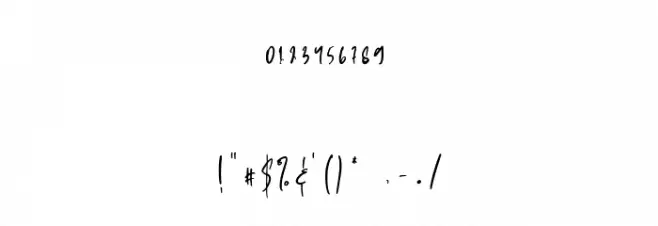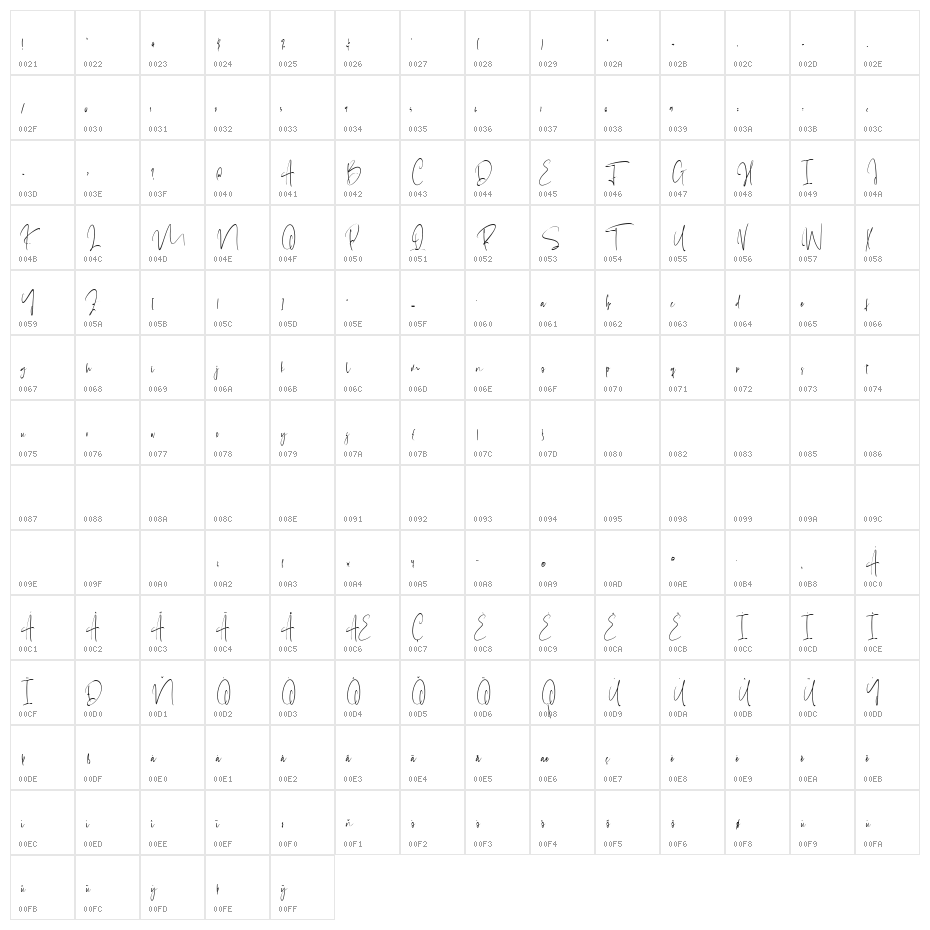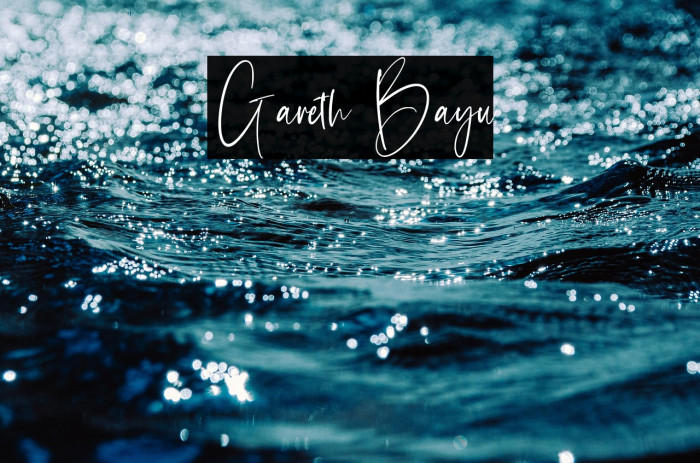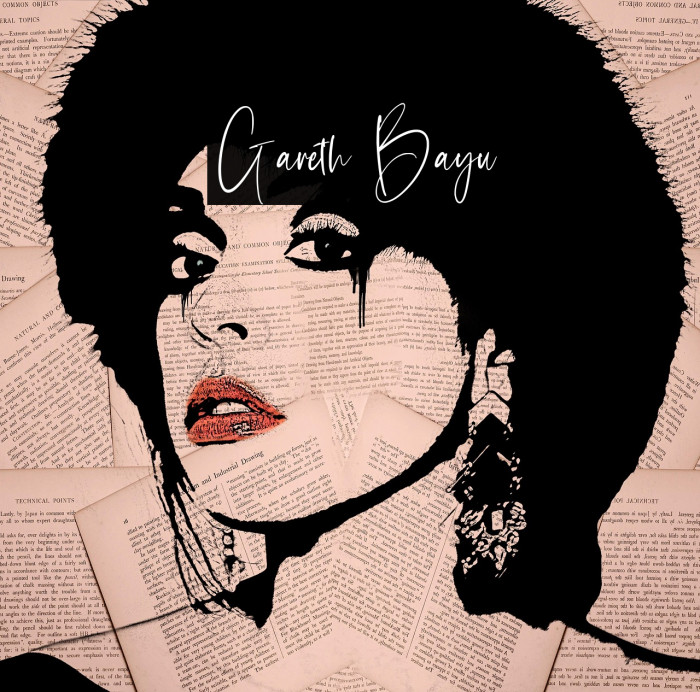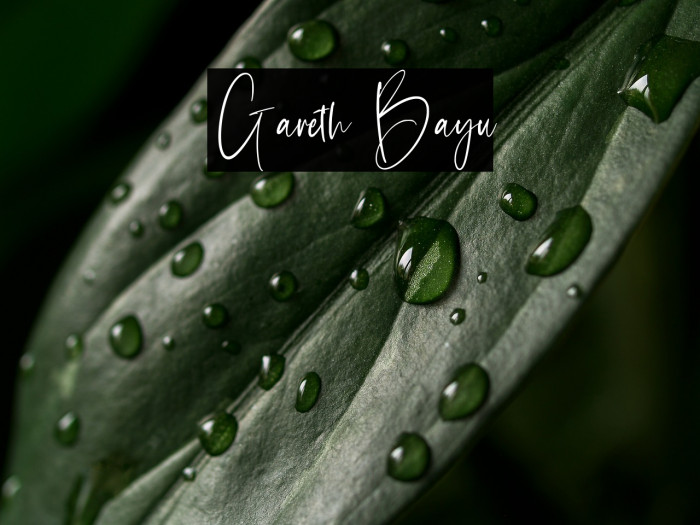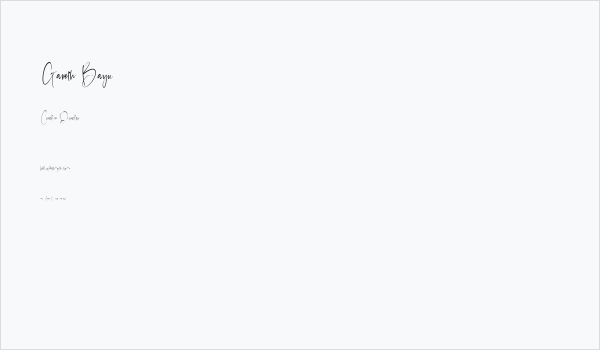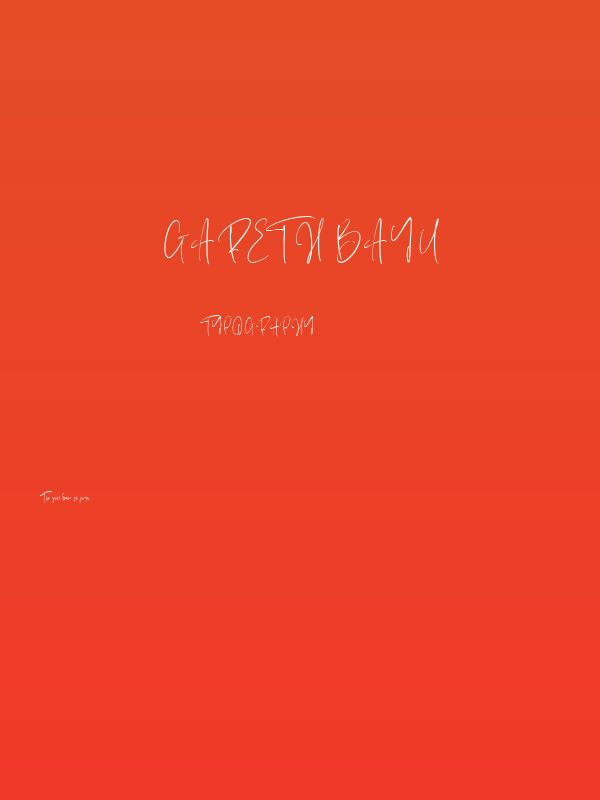
Gareth Bayu Font
Gareth Bayu Description
This font features a whimsical and flowing handwritten style, characterized by its elegant and fluid strokes. The uppercase letters are tall and slender, with a playful, artistic flair that gives each character a unique personality. The lowercase letters maintain the same fluidity, with some letters extending below the baseline, adding to the font's dynamic appearance. The numerals and special characters are crafted with the same attention to detail, ensuring consistency throughout. This font is perfect for projects that require a personal touch, such as invitations, greeting cards, or branding materials.